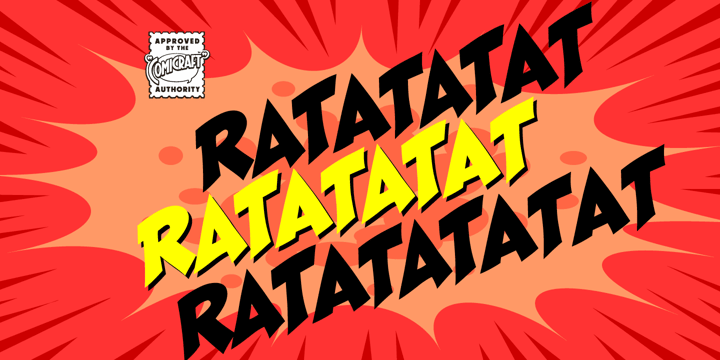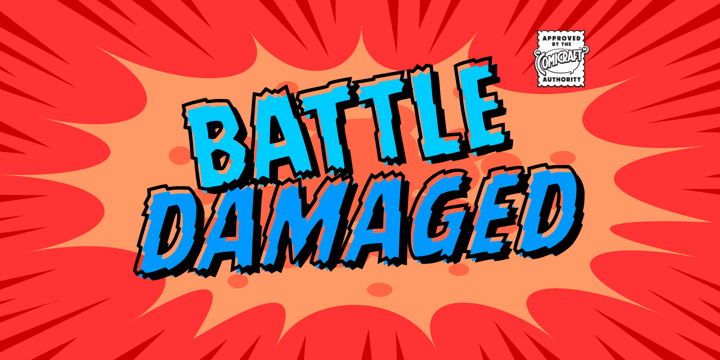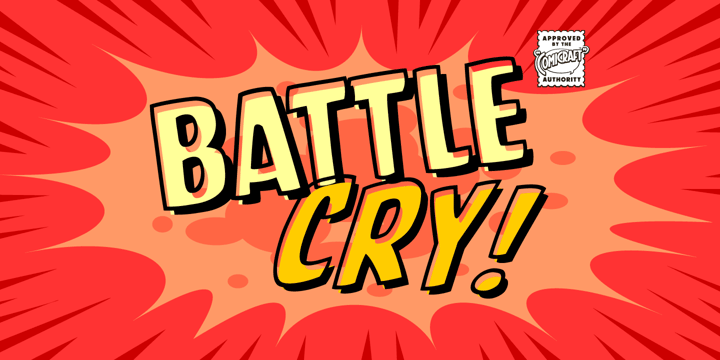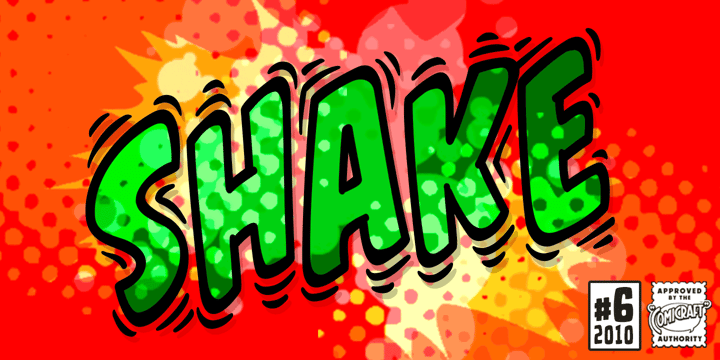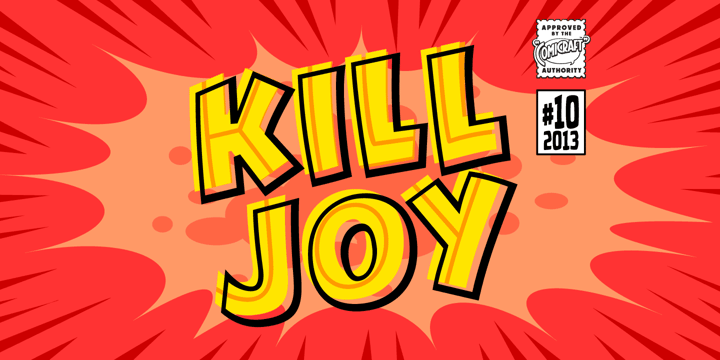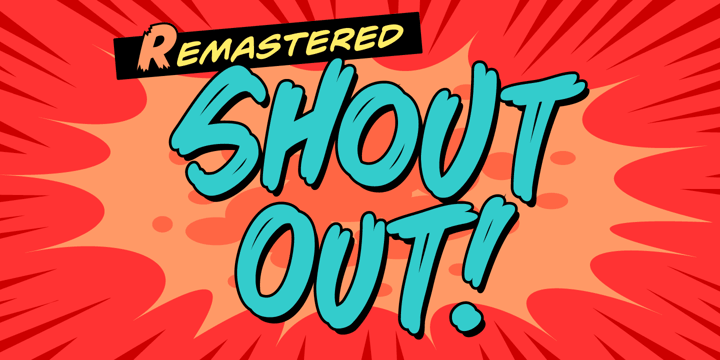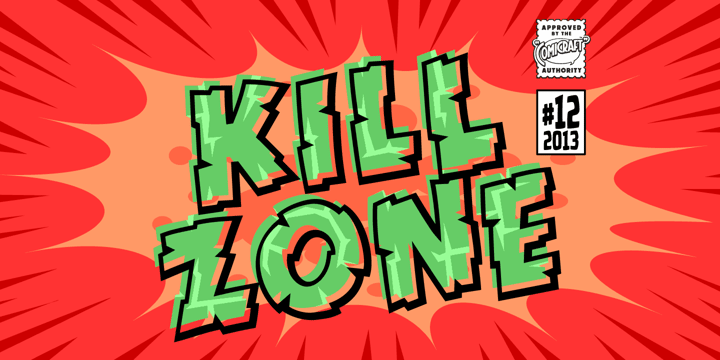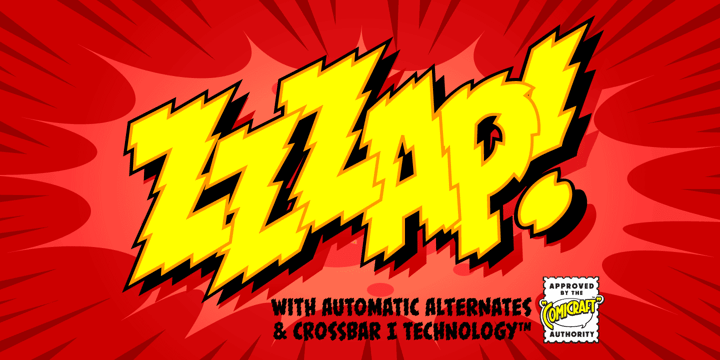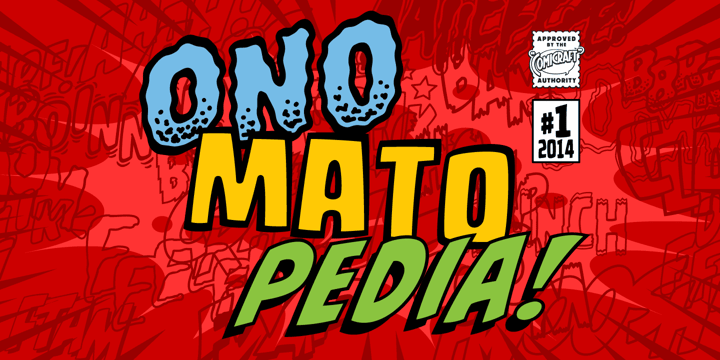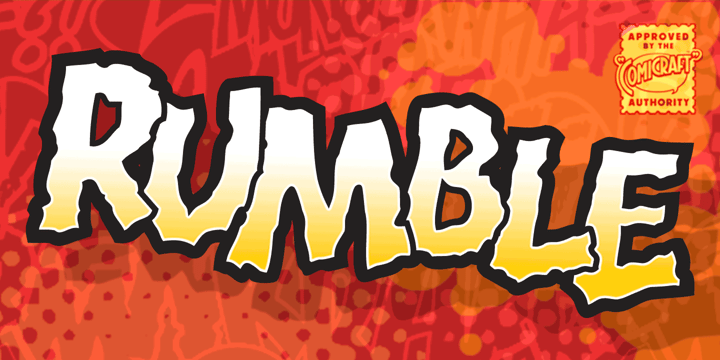
Spectacular Comicraft Sound Effects
Whether you're going to punch out your deadliest foe, or just make your logo more Smashing, you'll find the loudest, largest, most spectacularly devastating Comic Book Sound Effect fonts you need right here.
The Dynamic Duo of Richard Starkings and John Roshell founded the Comicraft studio in 1992 to provide top quality lettering & design to the comic book industry. Comicraft fonts have been used to letter thousands of comic books, cartoons & graphic novels, from The Avengers to The Uncanny X-Men. Accept no substitutes, true believer!